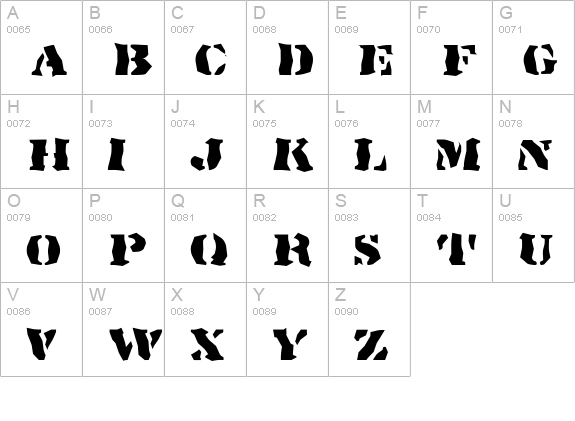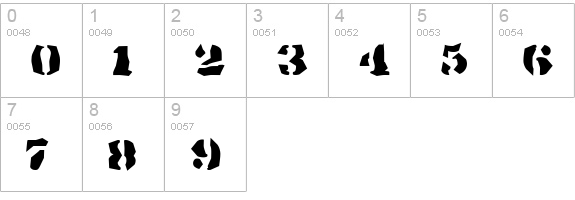
Tornado font is a bold and dynamic typeface that packs a powerful punch with its sharp edges and sleek design. This font exudes a sense of energy and motion, making it perfect for projects that require a strong and impactful visual presence. Whether you're designing a poster, logo, or website, Tornado font will make your text stand out and grab attention. What's even better is that Tornado font is completely free to download at FontsMarket.com. This means you can easily add this striking typeface to your collection without breaking the bank. So go ahead and unleash the power of Tornado font in your next project and watch it make a bold statement that won't go unnoticed.